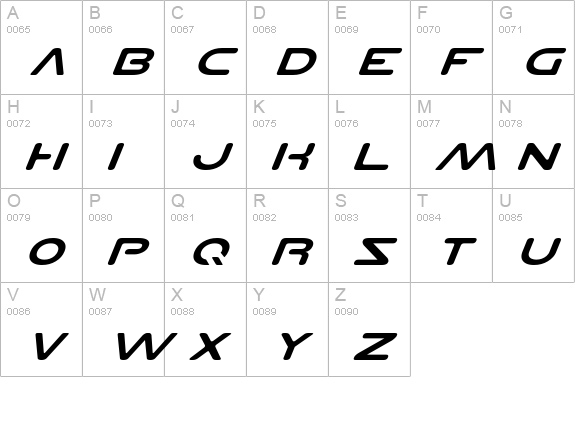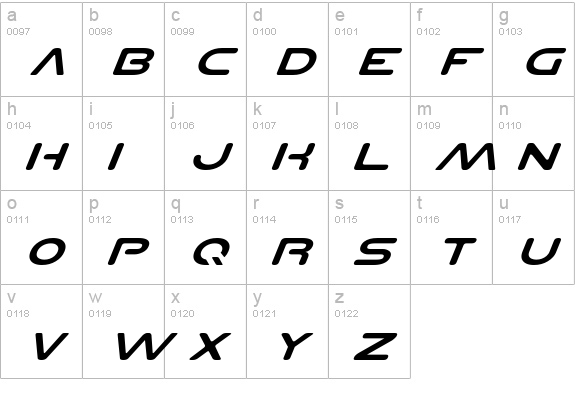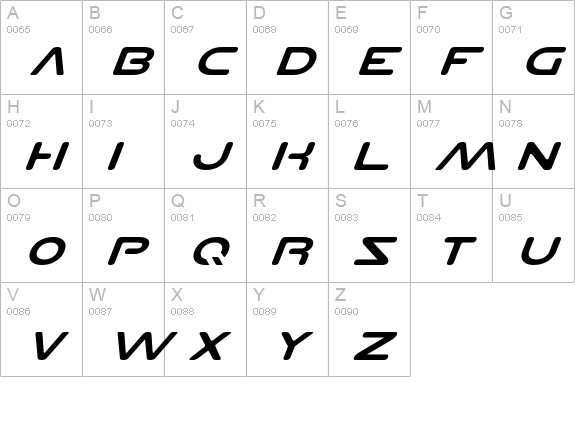
Planet NS Expanded Italic Font Details
Planet NS Expanded Italic is a distinctive, extended-width, italic variant in the Planet typeface family \xE2\x80\x94 well suited to design and typography projects.
Introducing Planet NS Expanded Italic font, a breathtakingly modern typeface that effortlessly captures attention and brings a touch of elegance to any design project. With its sleek and stylish aesthetics, this font adds a sense of sophistication and professionalism to any text. Planet NS Expanded Italic font showcases a harmonious balance between boldness and subtlety, making it perfect for a wide range of applications. From eye-catching logos and striking headlines to sleek branding materials and captivating website designs, this font is a versatile choice that never fails to impress. The expanded italic design of Planet NS adds a unique twist to the traditional italic font style, enhancing its visual appeal and showcasing its versatility. The elongated letterforms create a sense of movement and dynamism, making every word come alive on the page. One of the best things about Planet NS Expanded Italic font is that it is freely available to download at FontsMarket.com. This means that designers and creatives can easily access and utilize this remarkable typeface without any cost or limitations. Whether you're working on personal or commercial projects, this font is a valuable addition to your typography toolbox. With its extensive character set and impeccable legibility, Planet NS Expanded Italic font ensures that your message is conveyed with clarity and impact. Its clean lines and distinct letterforms make it easy to read at any size, allowing your audience to effortlessly engage with your content. So, if you're looking to elevate your designs with a font that exudes sophistication and style, look no further than Planet NS Expanded Italic font. Its sleek aesthetics, versatile design, and free availability make it a must-have for designers who seek to create captivating and memorable visuals. Download it now at FontsMarket.com and unlock a world of design possibilities.